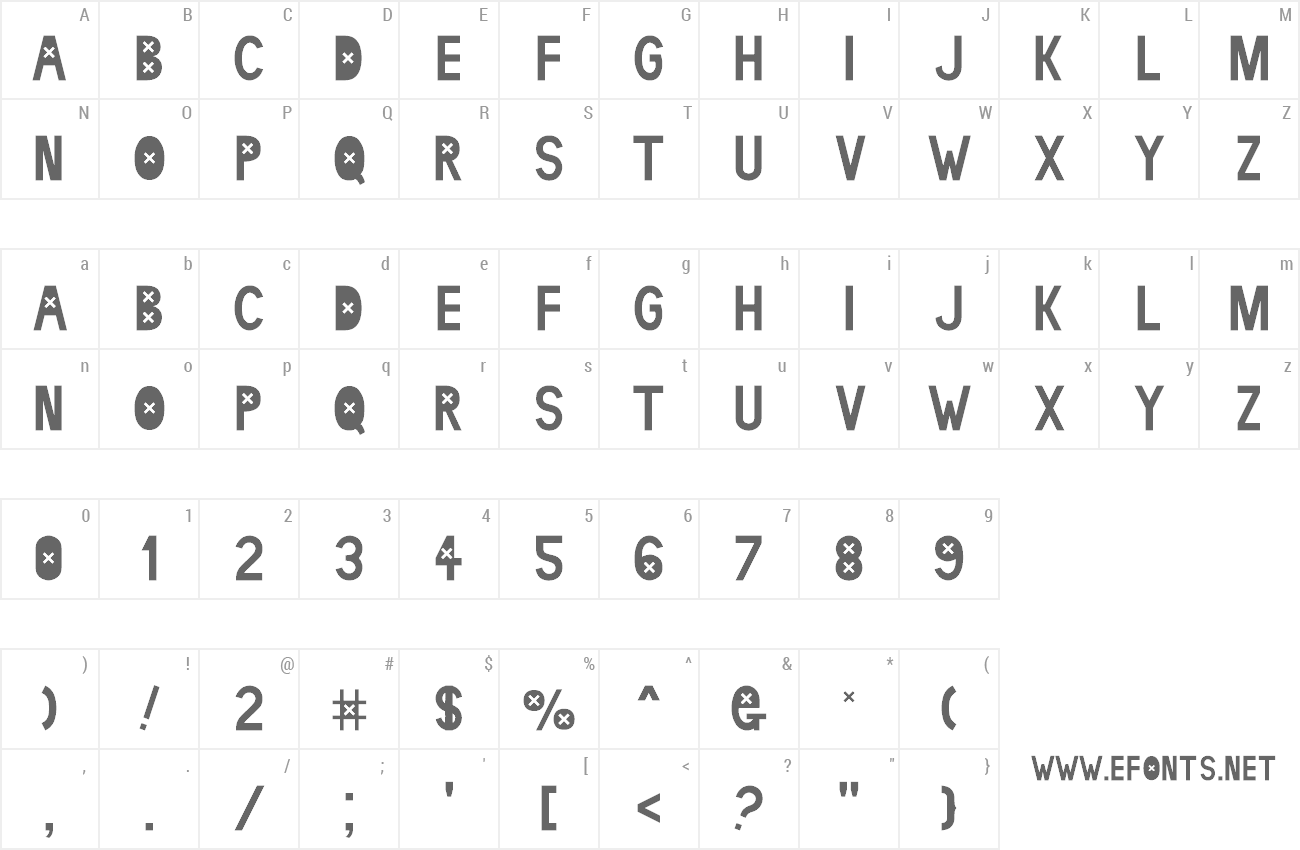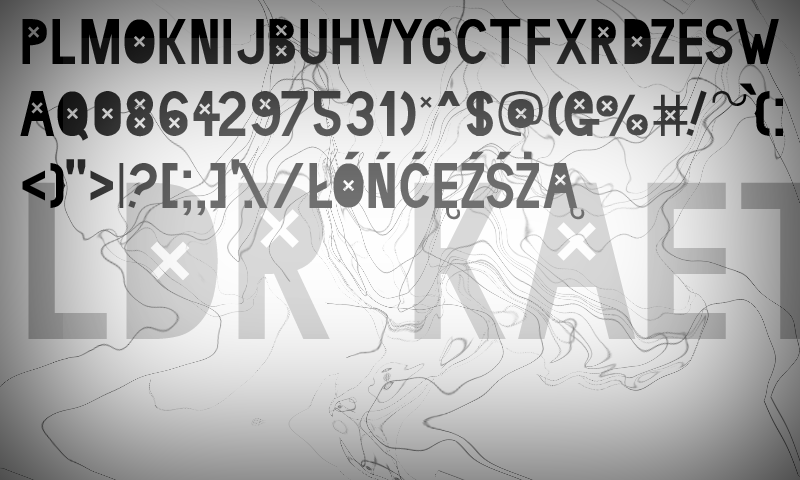
| Font name: | LDR Kaet |
| Author: | Neoqueto |
| Note by Neoqueto | |
| A remastered version of LDR HAET which had no kerning, incorrect spacing between characters and also low resolution of the whole shape. Now about 20% cooler. |